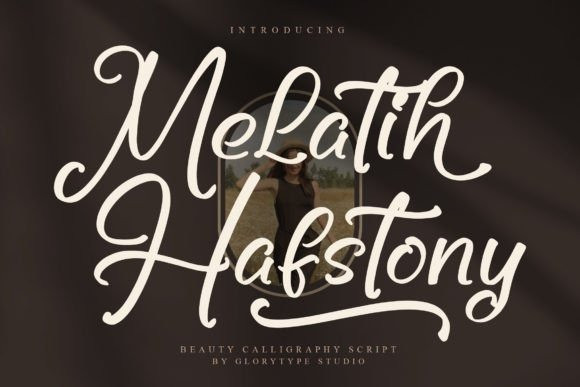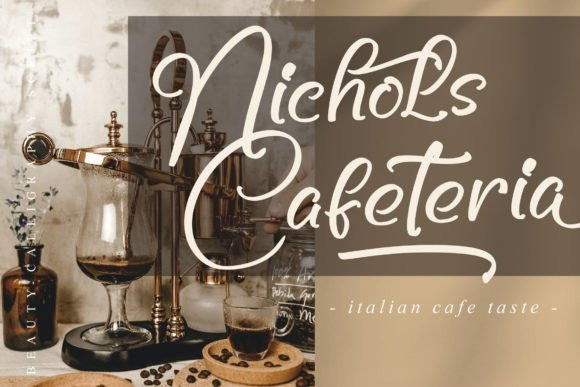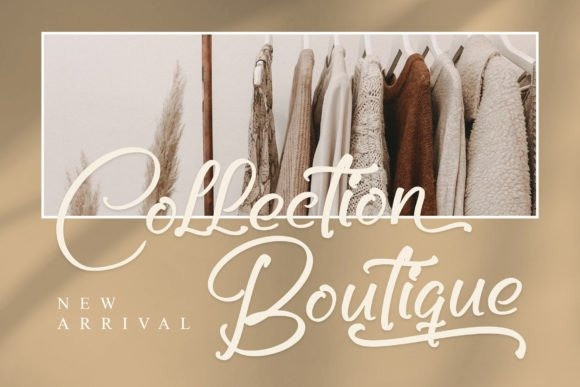
Melatih Hafstony Font
This elegant and fun calligraphy font is a great way to add a playful touch to your next project, be it a logo, stationery, poster, or something else.